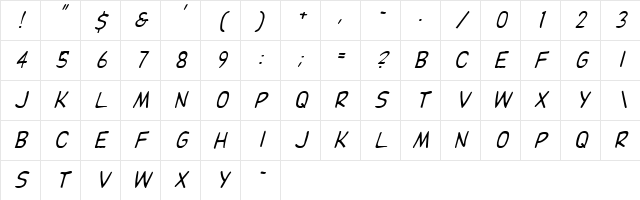
Pester 6 Italic Free Font
Pester 6 Italic
Design Context for Pester 6
Pester 6 is a composed and adaptable typeface that performs quietly and consistently across a wide range of design contexts. The slanted form adds forward momentum and visual energy.
Pro Tip: Use Pester 6 for emphasis, pull quotes, and subheadings where its slanted energy can add rhythm to the layout.